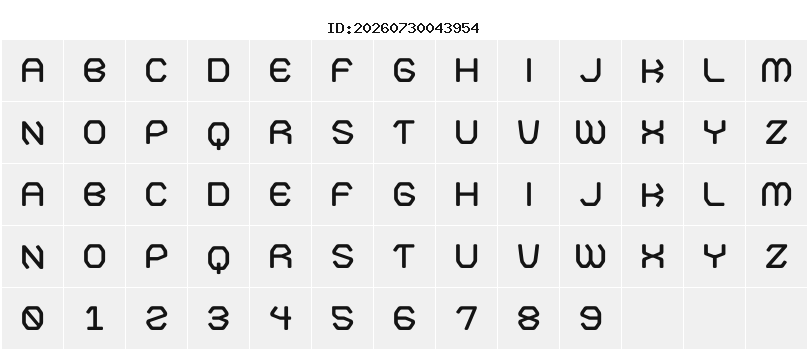
Kamone 7 Preview
About Kamone 7.ttf
Kamone 7.ttf is a modern, elegant sans-serif font designed for ultimate readability and visual harmony. Perfect for branding, headlines, web design, and print materials.